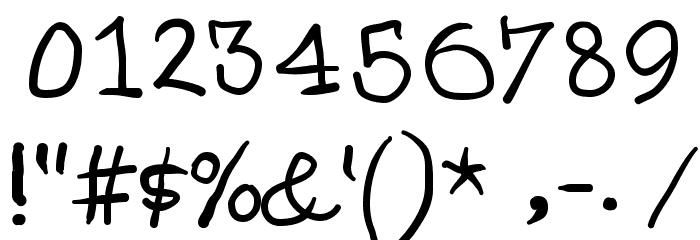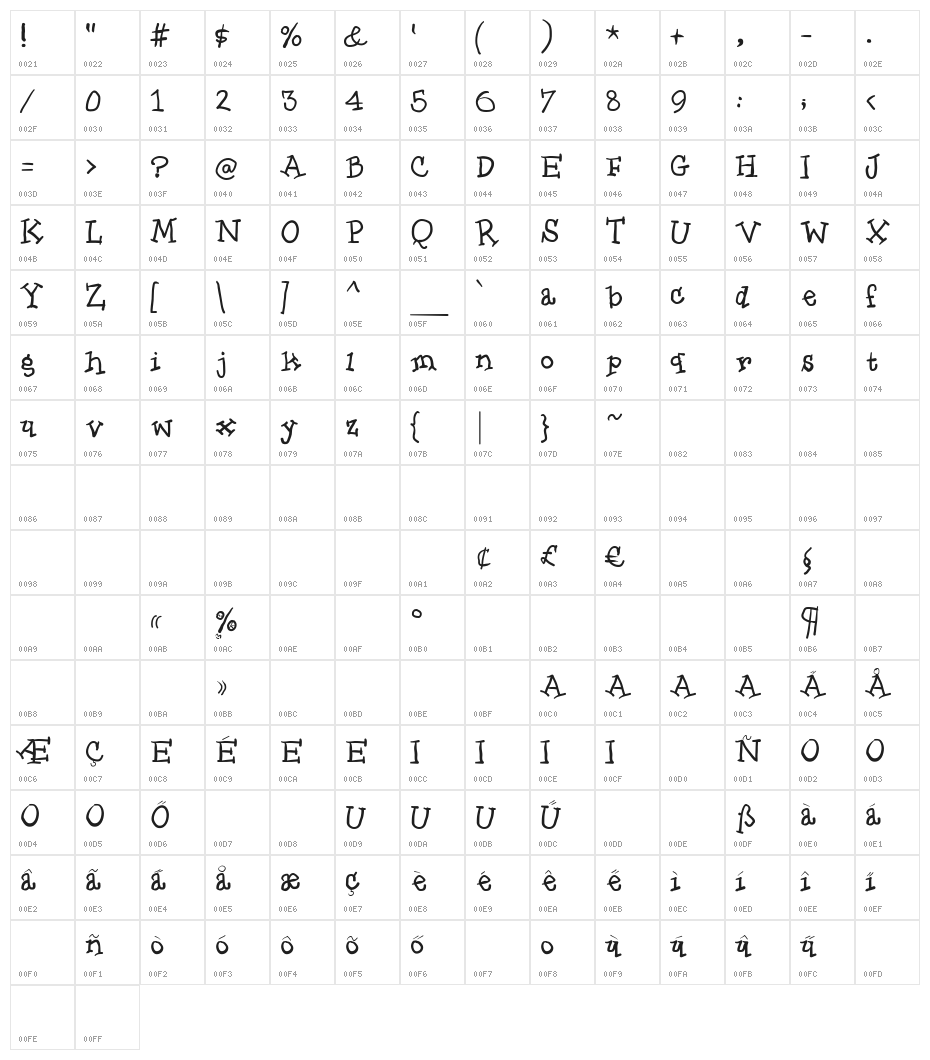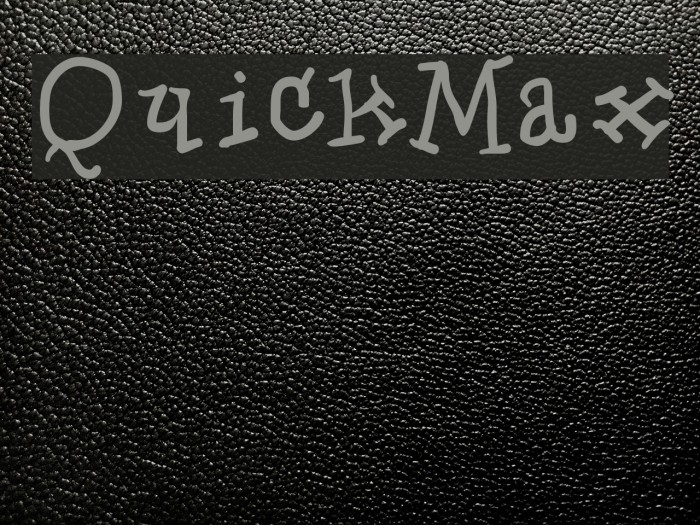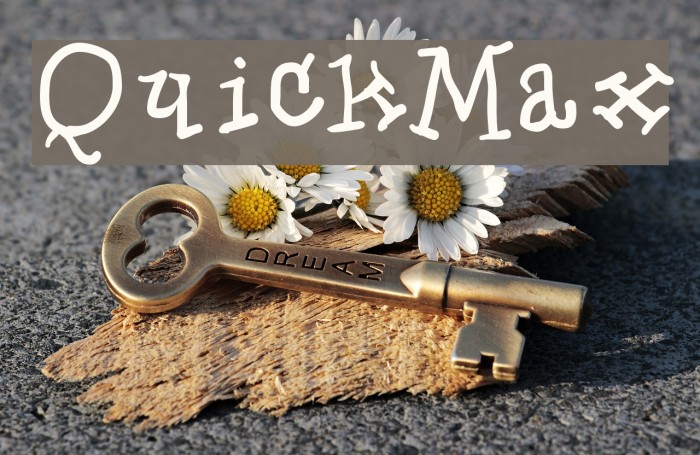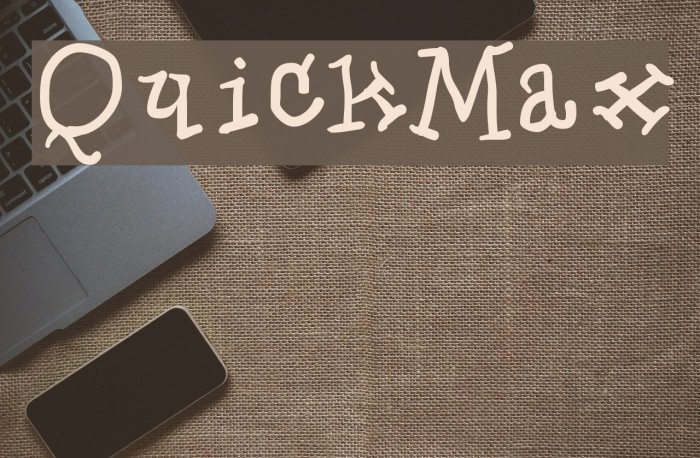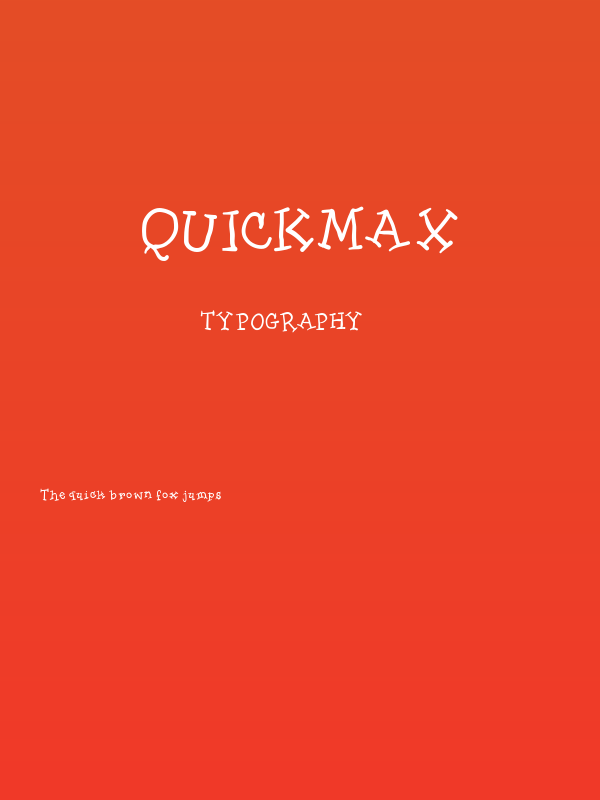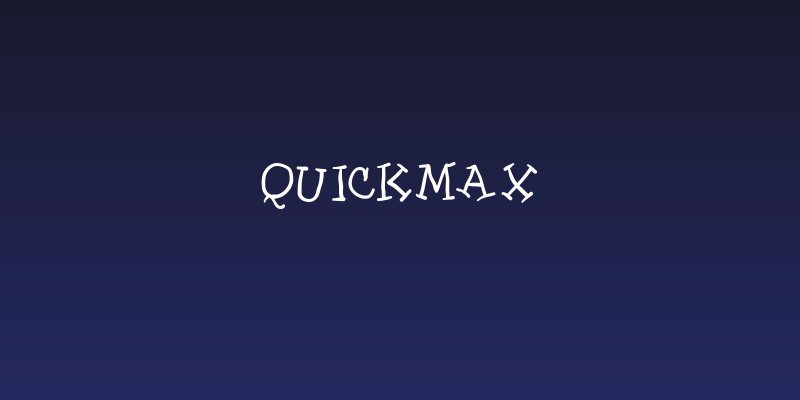
QuickMax Font
QuickMax Description
This font features a playful and whimsical style with a handwritten appearance. The characters are slightly irregular, adding a casual and friendly feel. The strokes are uneven, with a mix of thick and thin lines that create a dynamic and lively texture. The uppercase letters are bold and prominent, while the lowercase letters maintain a consistent flow. The numbers and special characters follow the same playful aesthetic, making the font versatile for creative projects. The overall design is approachable and informal, suitable for projects that require a personal touch.
| Proposed Projects | Ideal for children's books, greeting cards, playful branding, and casual invitations. |